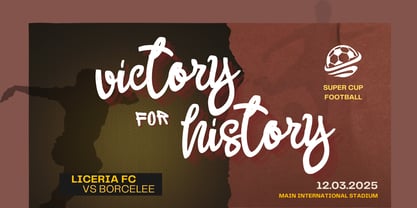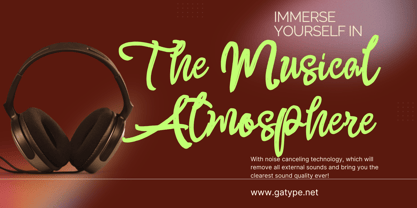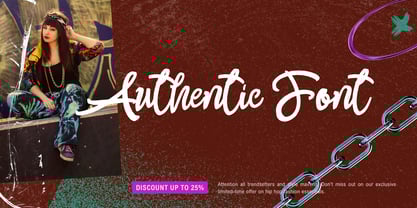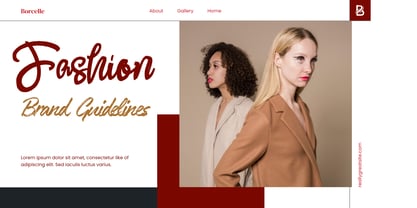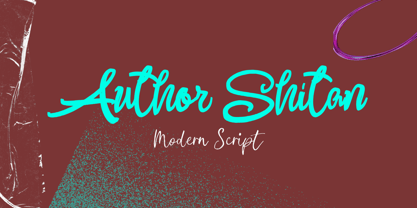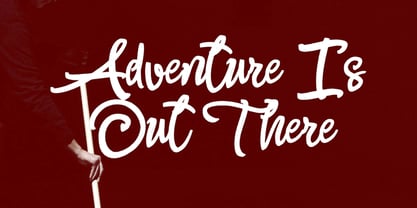
Author Shitan
Author Shitan is an elegant modern script font that flows smoothly and elegantly in any design you create. This font is a must-have for your modern script collection. It's a great choice for logos, album covers, quotes, greeting cards, book covers, wedding designs, social media posts, and more.
Author Shitan features a full suite of uppercase and lowercase letters, numbers, punctuation, and OpenType features like beautiful ligatures and swashes.